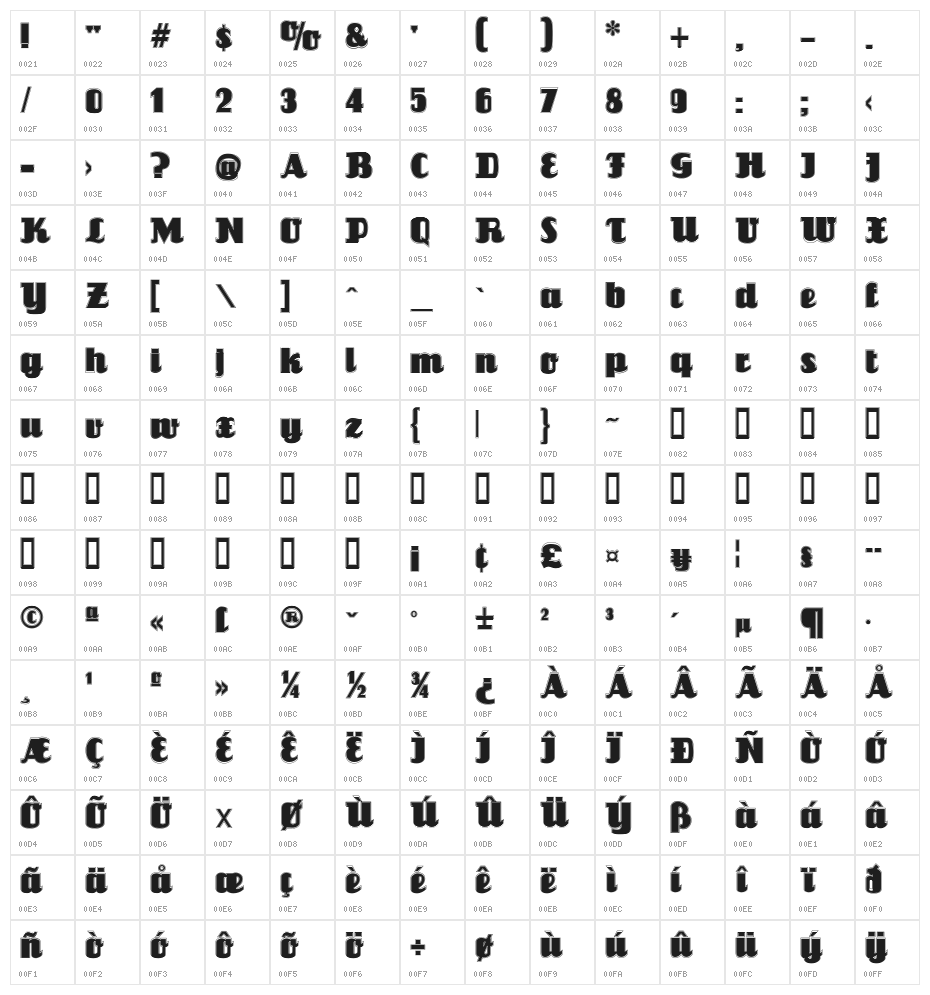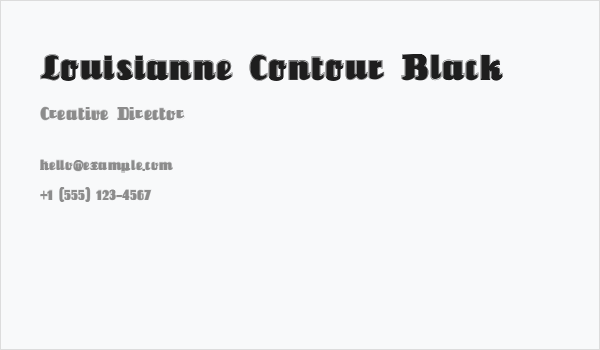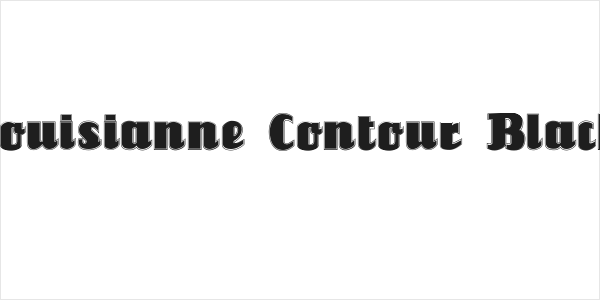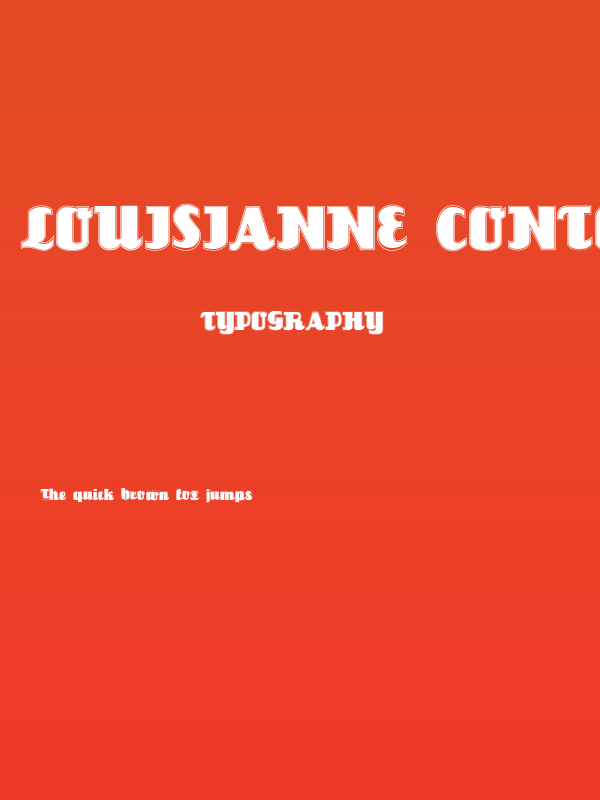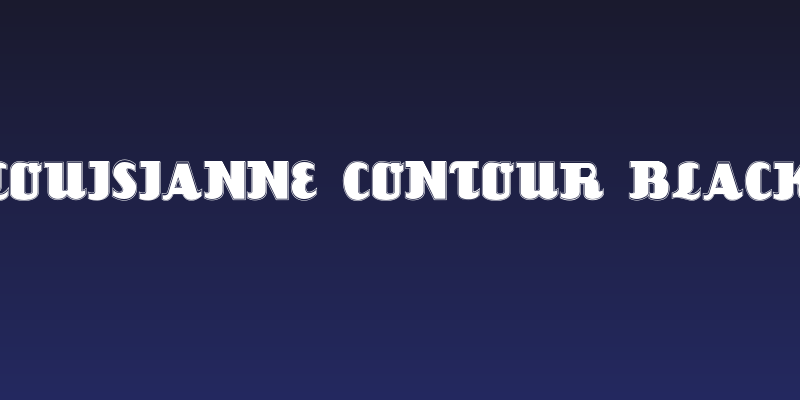
Louisianne Contour Black Font
Louisianne Contour Black Description
This font features a bold, decorative style with a strong contour outline that gives it a striking, three-dimensional appearance. The letters are robust and heavily weighted, with a unique flair that combines traditional serif elements with a modern twist. The uppercase and lowercase characters maintain a consistent design, with the uppercase being particularly prominent and eye-catching. The numbers and special characters are equally bold, ensuring uniformity across all text elements. This font's distinct contour effect adds depth and character, making it ideal for impactful visual presentations.
| Proposed Projects | Ideal for posters, logos, headlines, and any design requiring a bold, impactful typeface. |